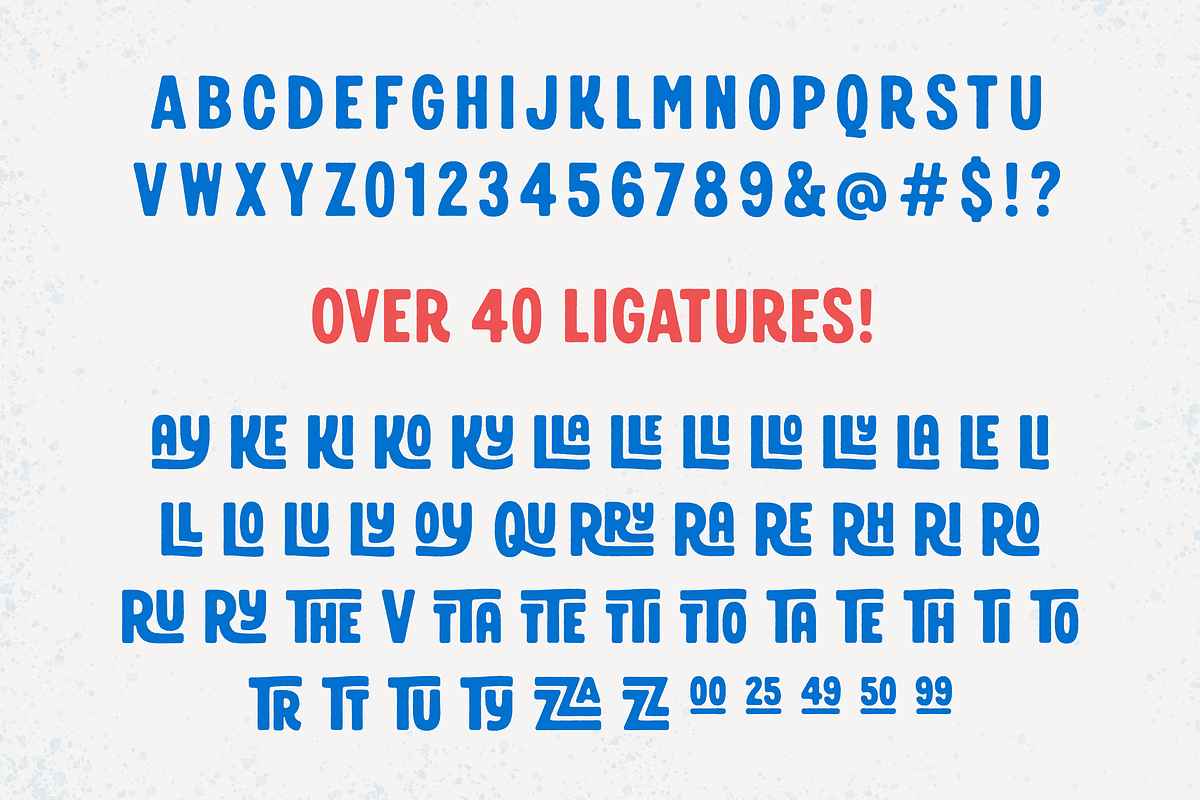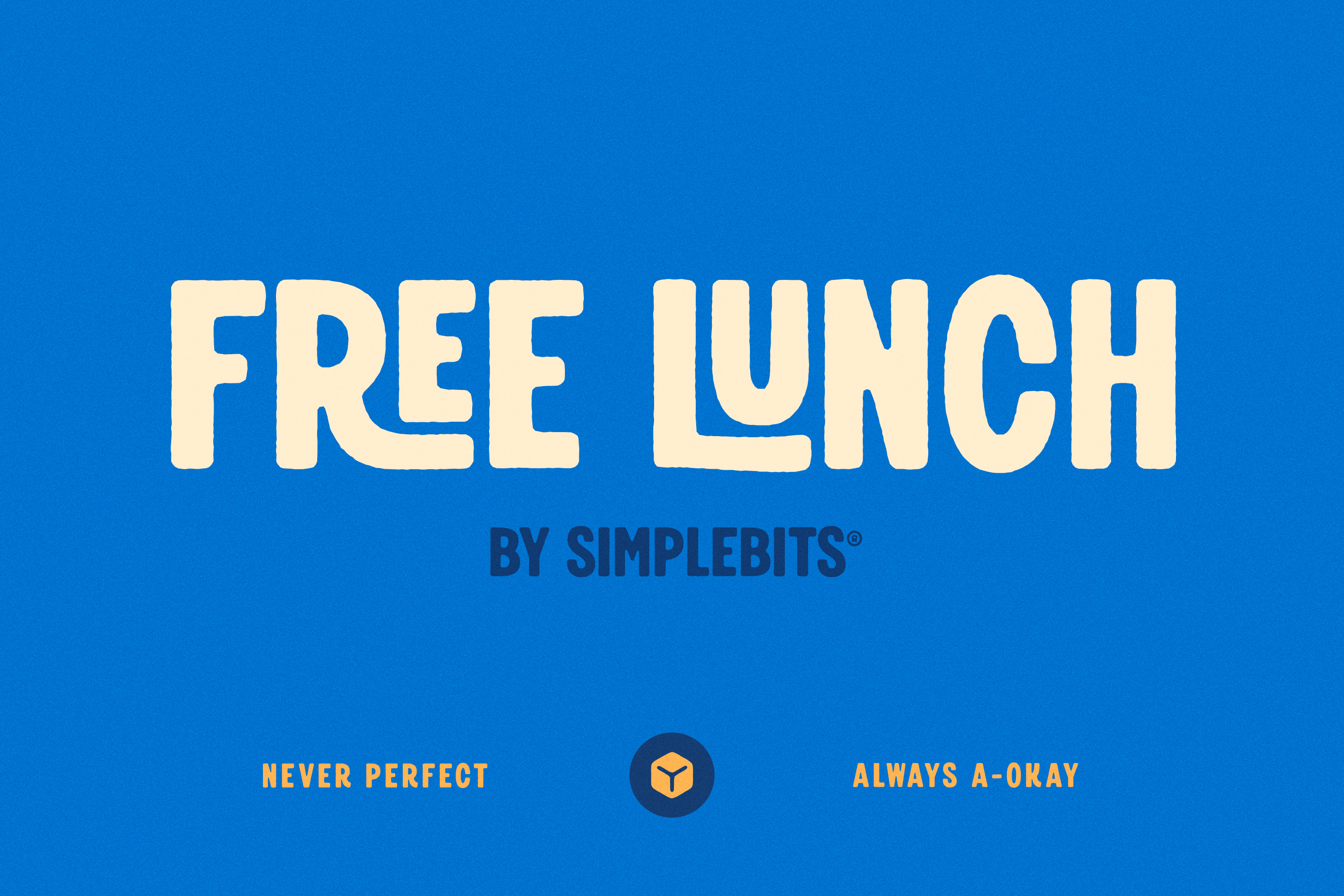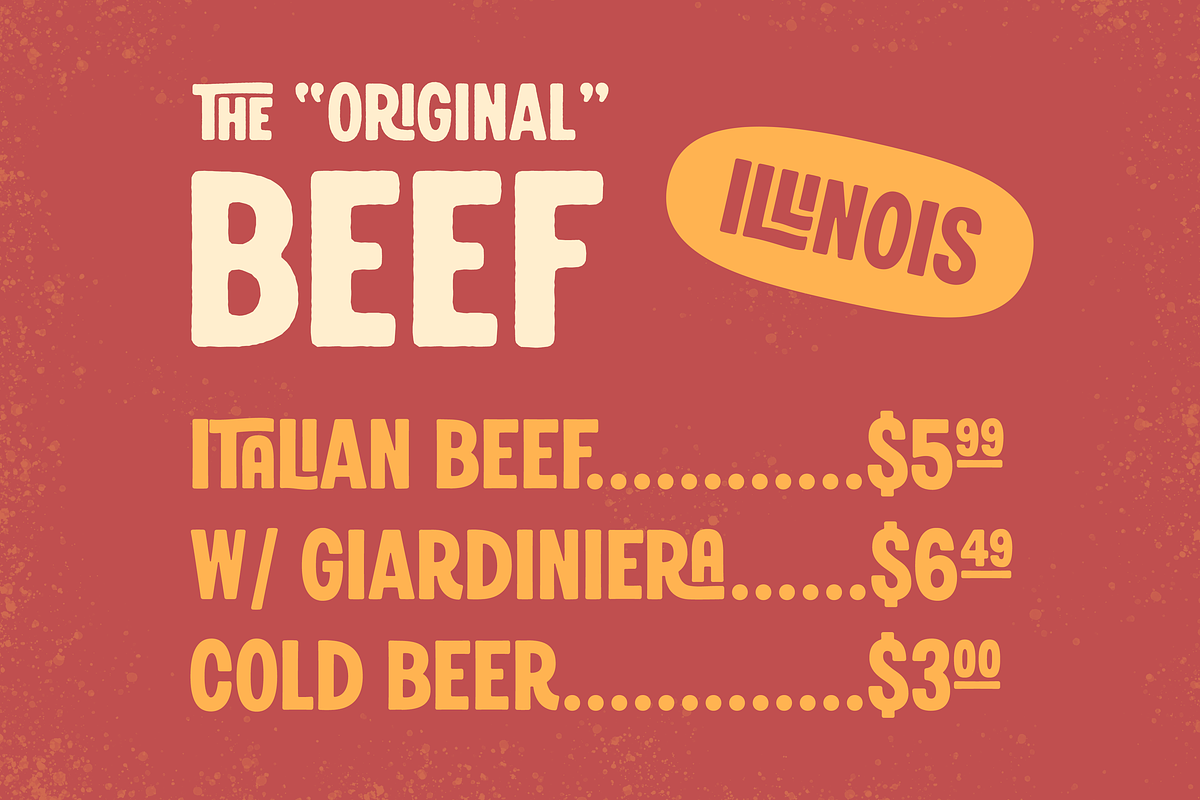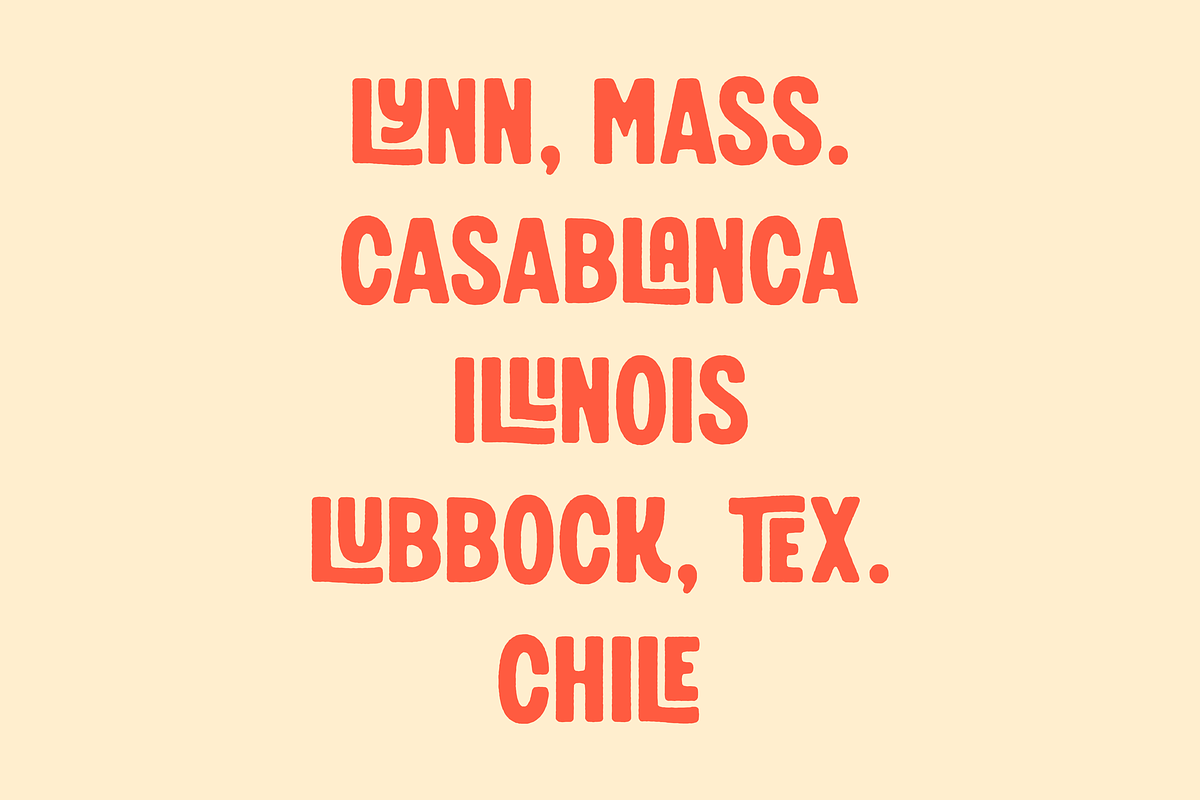
Free Lunch — Vintage lettering font
Free Lunch is an all-caps display font that would look comfortable in a butcher shop window. Or a lunch counter menu in 1955. Or printed on the waxed paper that wraps a half-pound of Swiss cheese from your neighborhood deli. A little playful, great for headlines and logos.
Included are two styles: Regular and Rough. A–Z, numerals, basic punctuation, a few alternate glyphs, plus over 40 ligatures for easily adding maximum sign-painting vibes. We can't wait to see how you use this one.